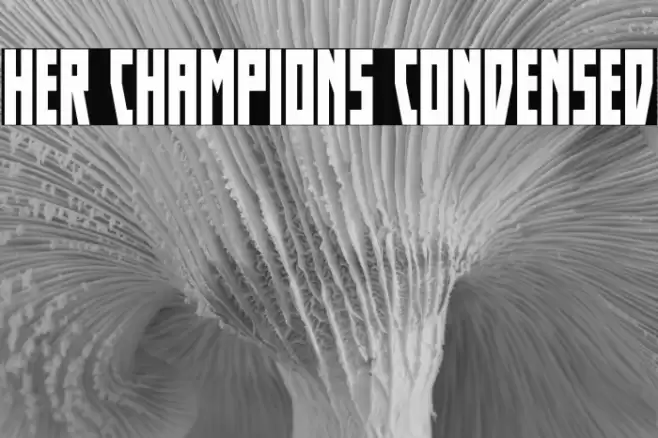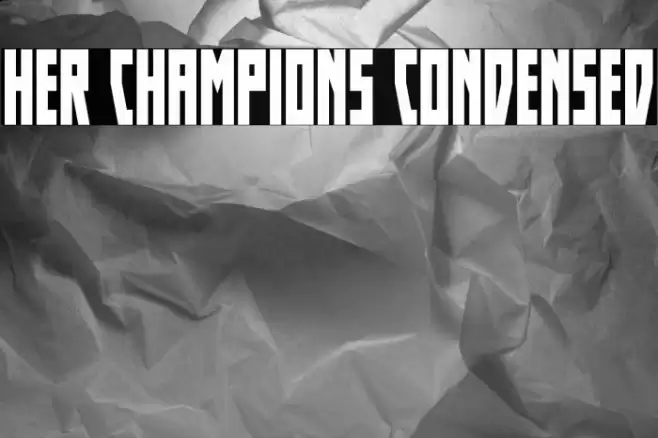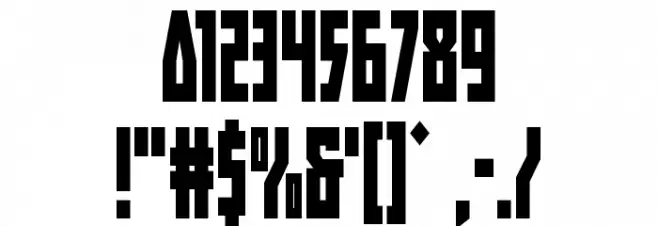
Her Champions Condensed Font
Her Champions Condensed Description
This font exhibits a bold and condensed style, characterized by its strong geometric shapes and sharp angles. The uppercase letters are particularly striking, with a uniform height and a consistent stroke width that conveys a sense of strength and stability. The numbers and special characters maintain this bold aesthetic, ensuring a cohesive look across all glyphs. The design is modern and assertive, making it ideal for attention-grabbing headlines or impactful branding. Its condensed nature allows for efficient use of space, making it suitable for designs where space is at a premium.
A bold, condensed font with geometric shapes and sharp angles, ideal for impactful designs from Regular fonts.
- Font: Her Champions Condensed
- Proposed Projects: This font is perfect for sports branding, poster designs, and any project requiring a strong, modern aesthetic.
- Character Spacing: Tight